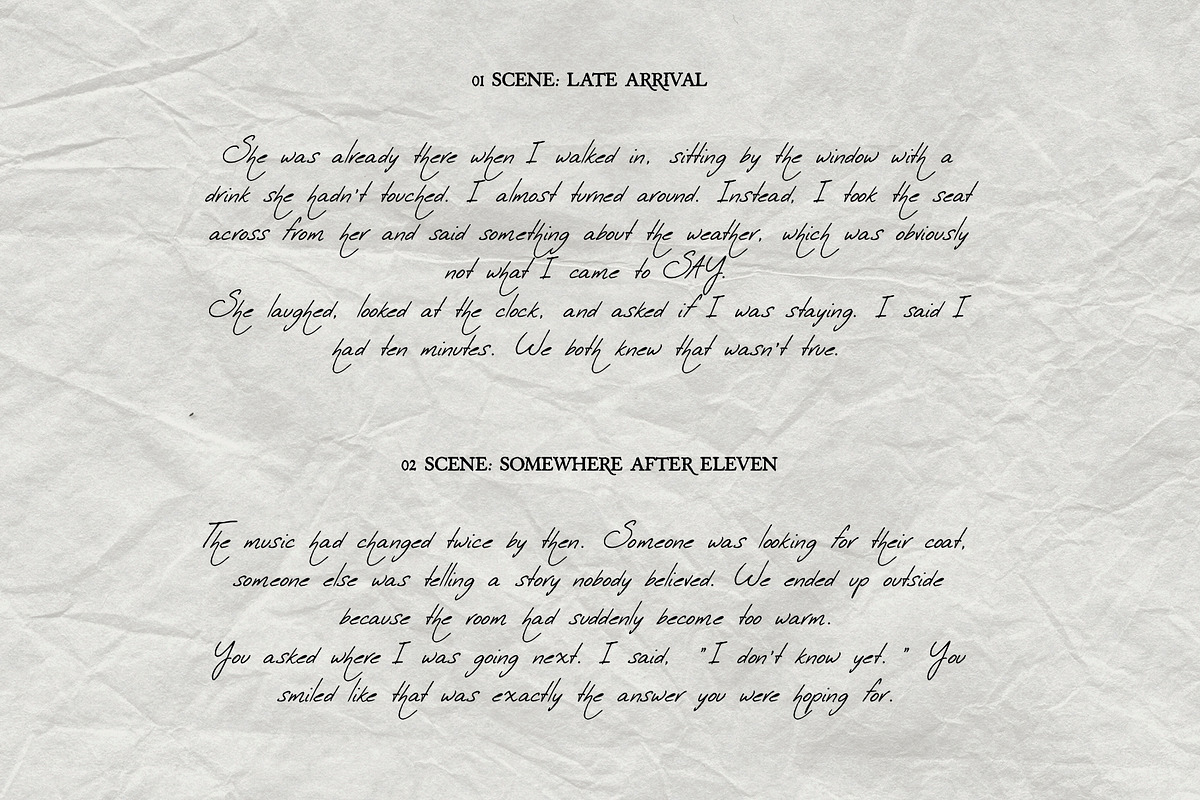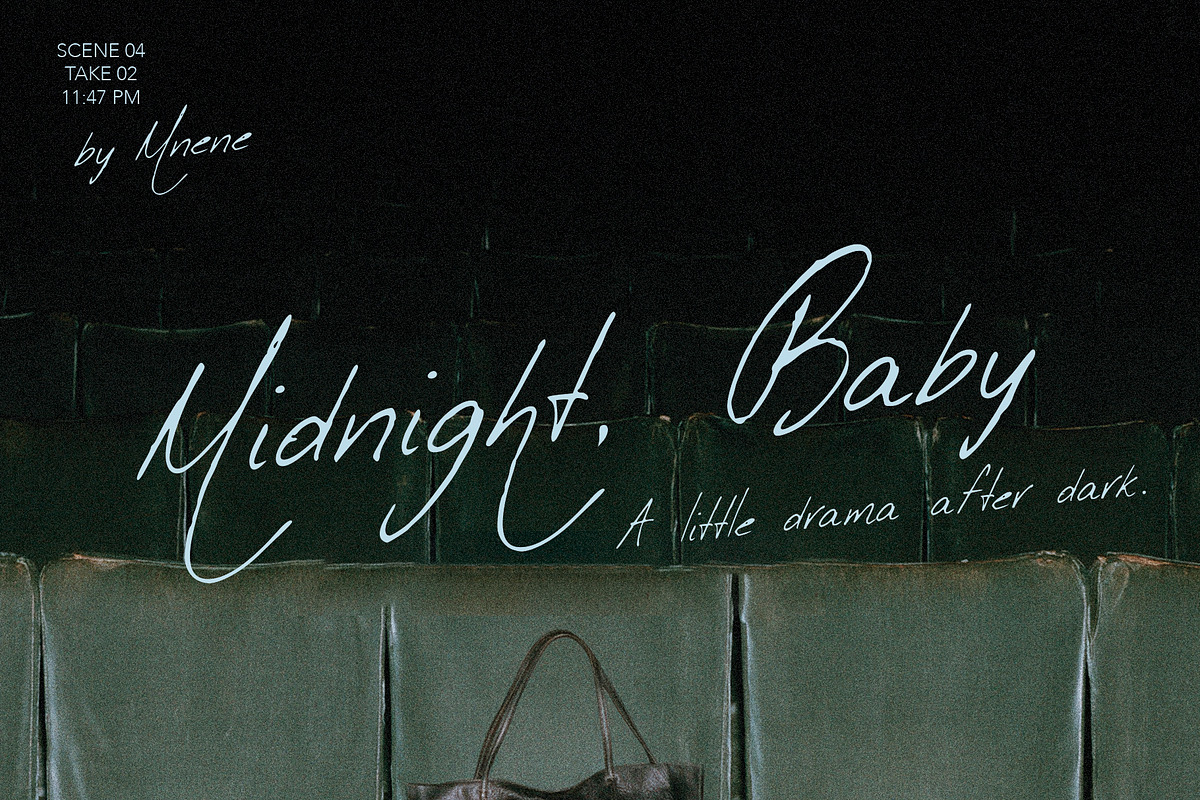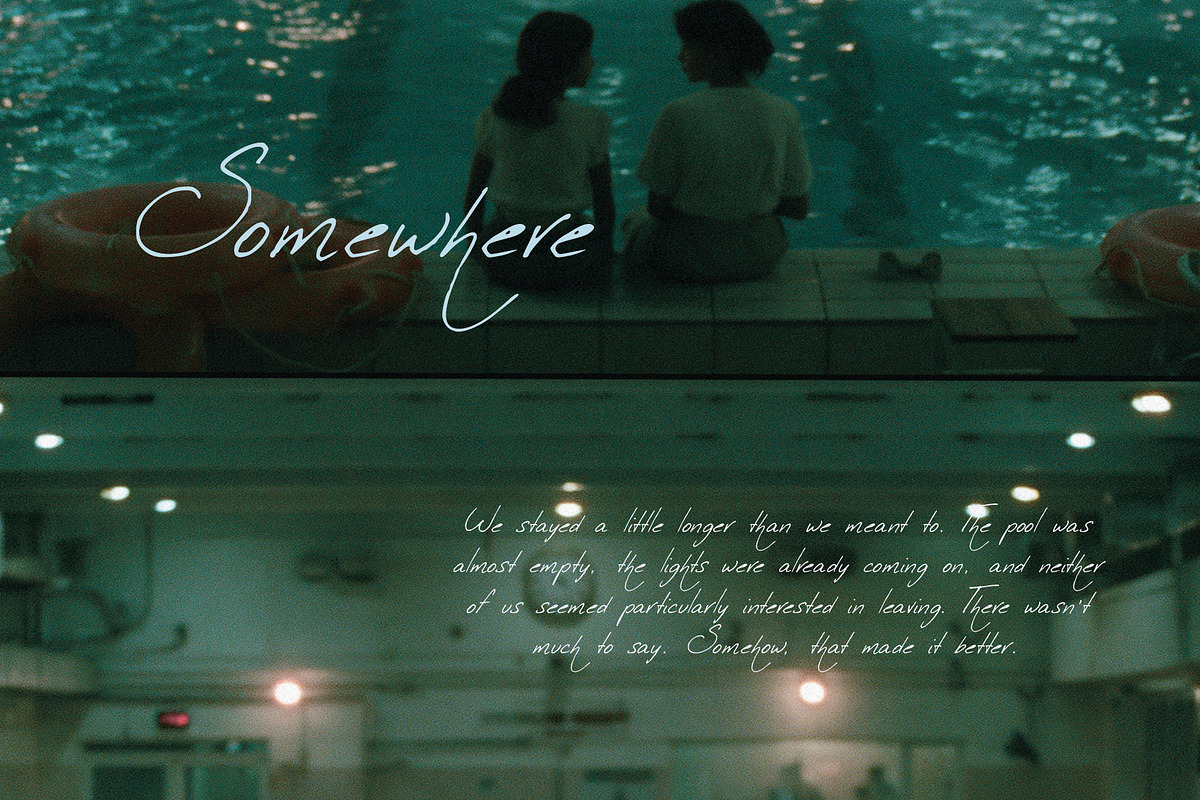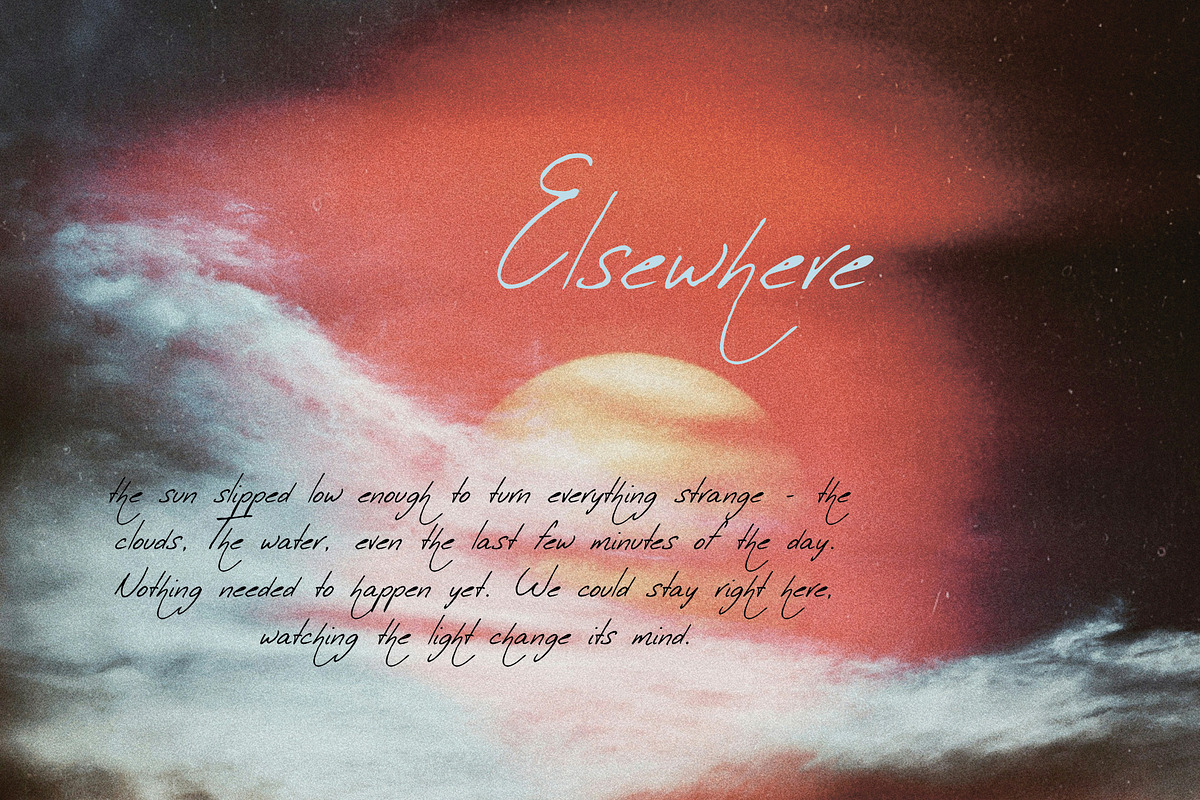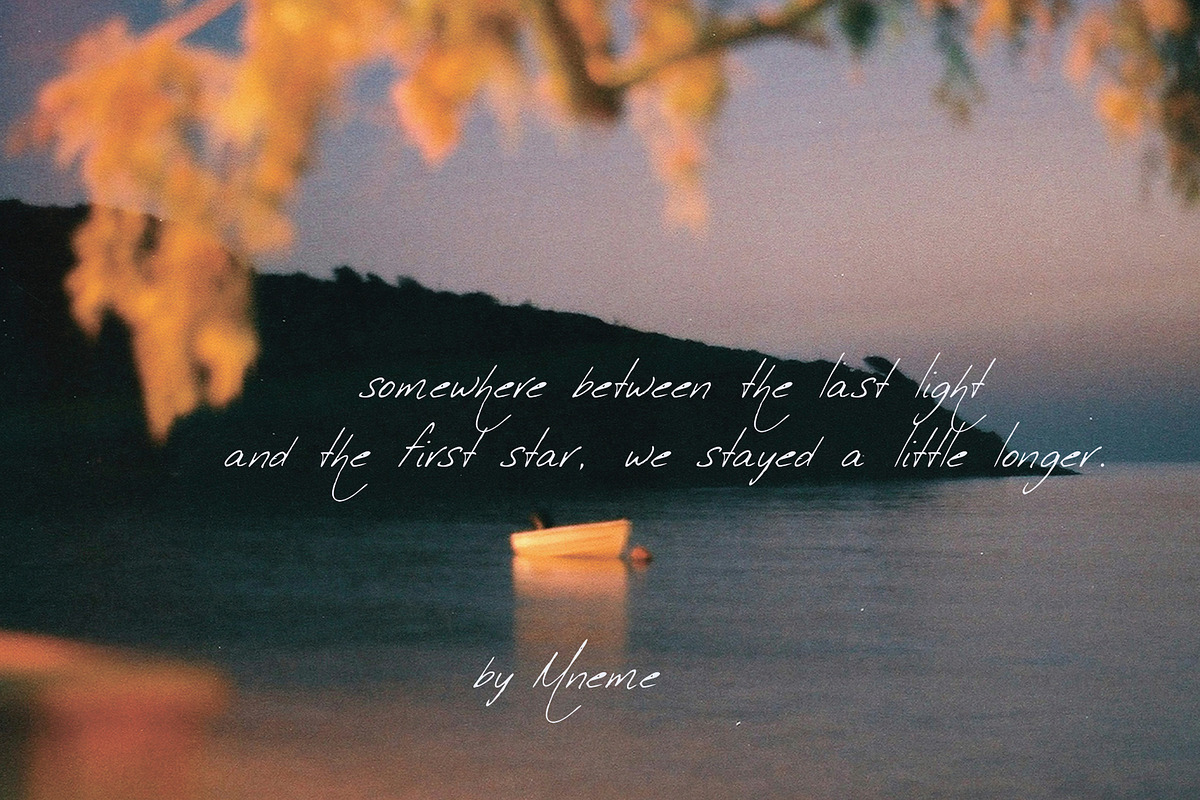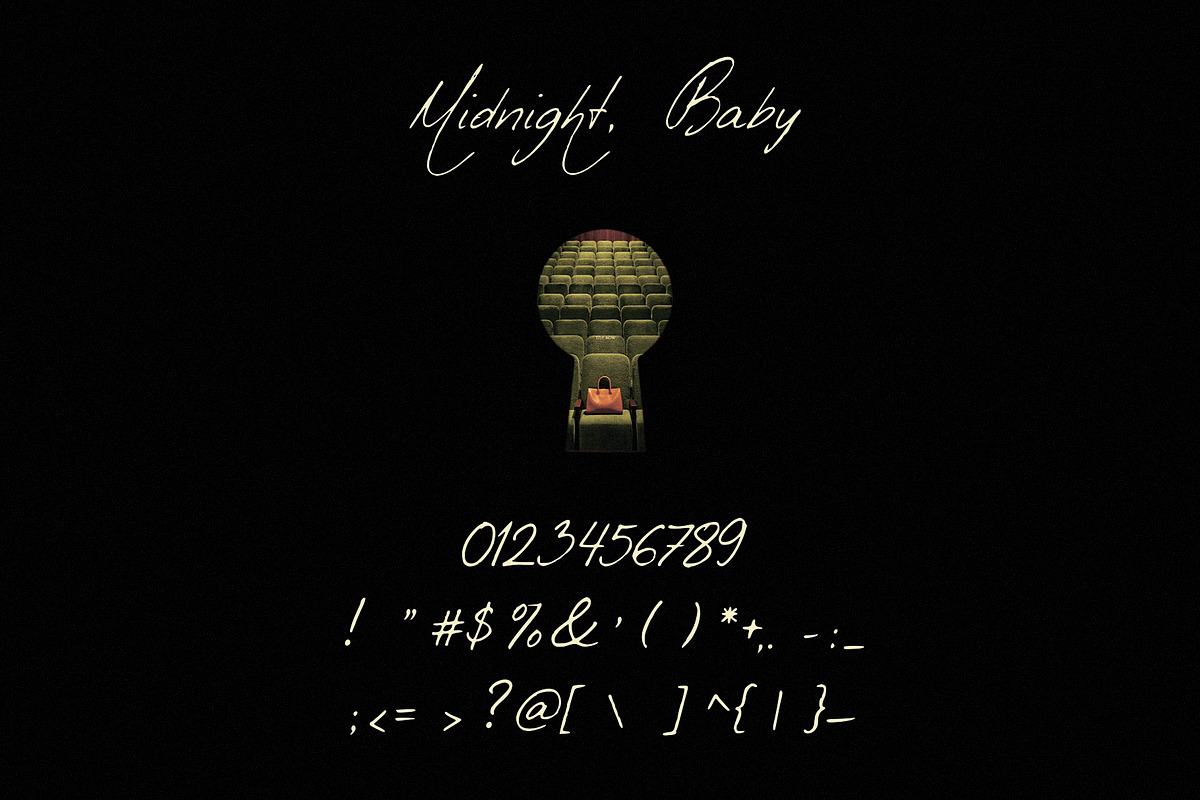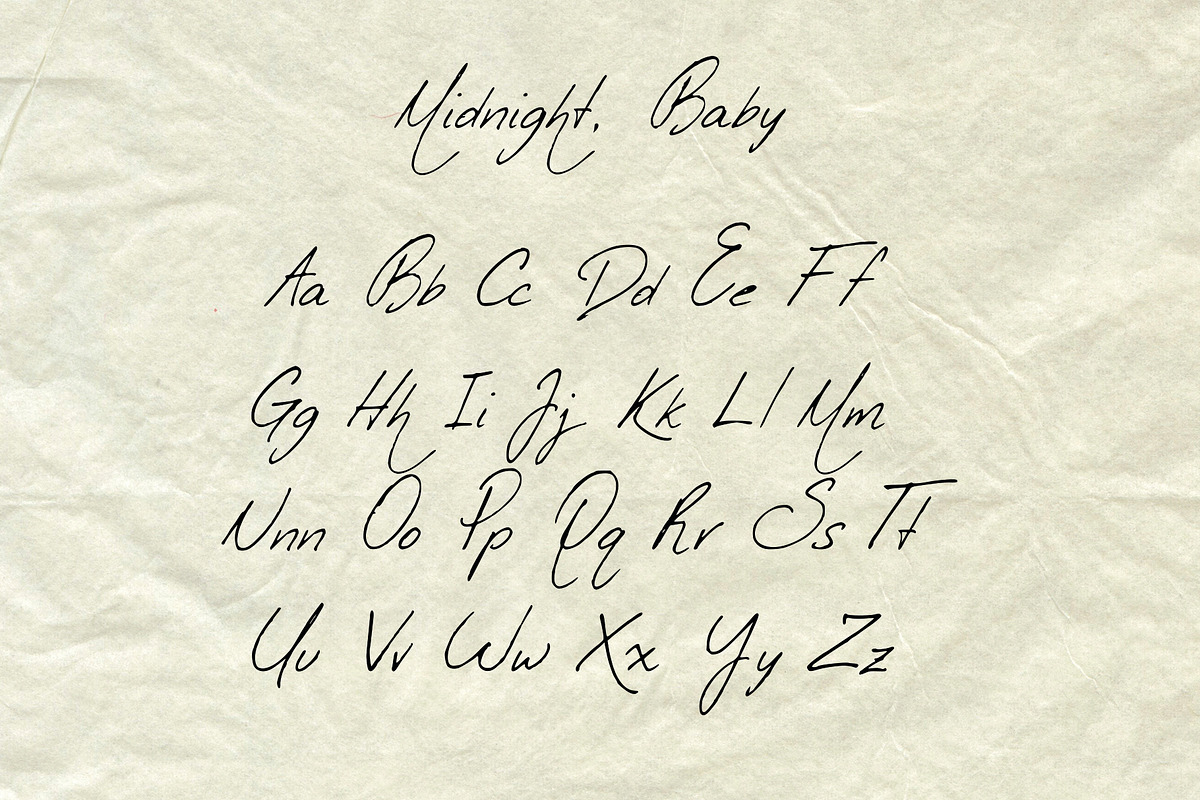
Midnight Baby - Handwritten Script
Midnight Baby is a loose, expressive handwritten script made for the hours when everything feels a little more cinematic.
Long sweeping strokes, unexpected loops and slightly imperfect letterforms give it that handwritten-on-the-back-of-a-ticket feeling — intimate, playful, and a little reckless.
Use it for fashion editorials, film-inspired branding, invitations, album artwork, posters, beauty campaigns, social graphics, packaging and anything that needs a touch of after-dark attitude.
Expressive swashes & long tails
Handwritten, slightly imperfect forms